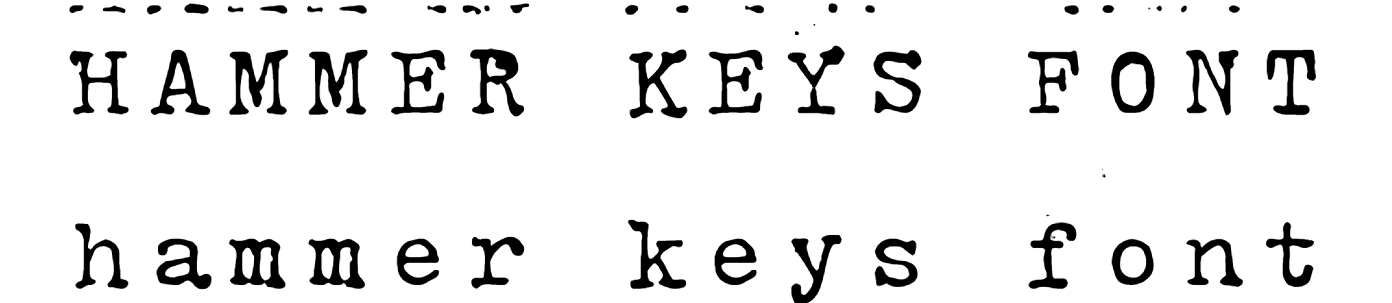
Hammer Keys
Hammer Keys is a typewriter font (1998). It looks like it was typed on an old manual typewriter, with that slightly uneven, ink-on-paper feel. It's a free download, and you can try it with your own text in the preview above first.
What You Can Type With Hammer Keys
With complete upper and lowercase letters and all ten digits, Hammer Keys is ready for real wording, not just a single headline. Everyday marks like &, !, ? and @ are there too. There are no accented letters like é or ñ, so it's best kept to English text.
Where Hammer Keys Works Best
Hammer Keys is a natural fit for vintage letters, screenplay titles and old-paper designs. The file has no kerning data, so in logos and big titles check pairs like AV, To and Wa and tighten the spacing by hand. It's one of the few decorative styles that also works for longer text, like a letter, a poem or a screenplay-style quote.
What fonts pair well with Hammer Keys?
Pair it with a bold serif headline for a classic vintage-document look.